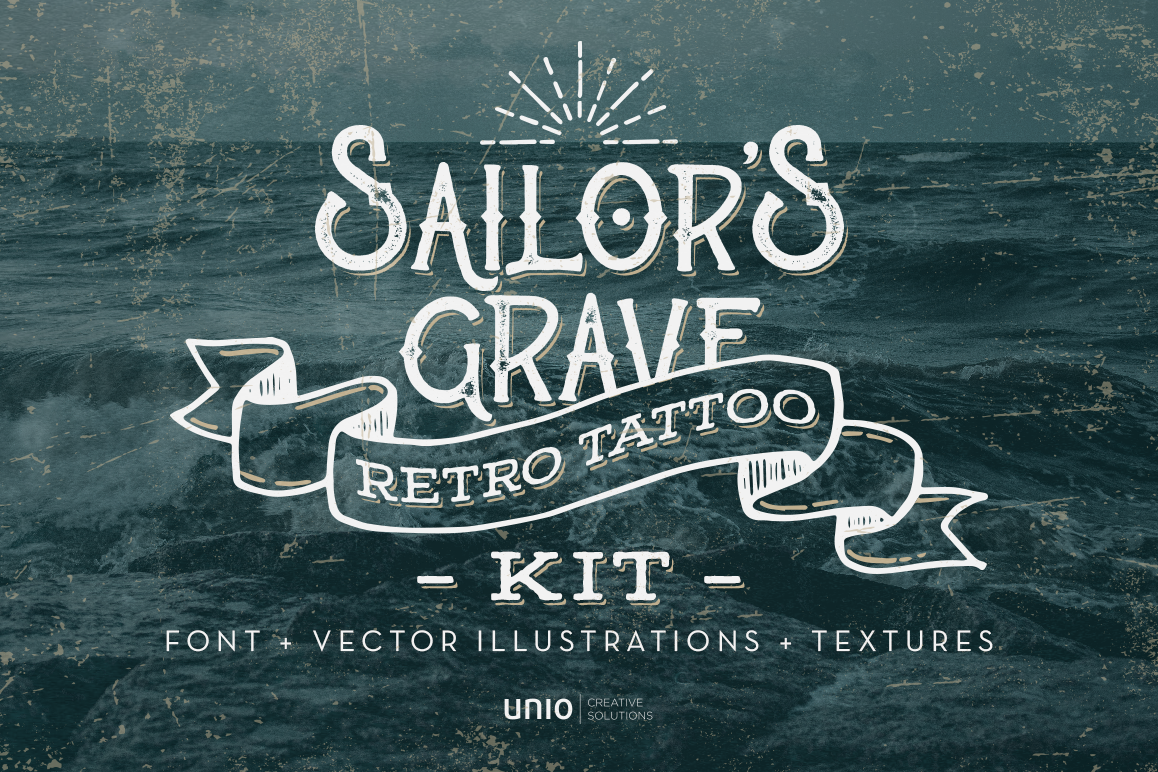
Sailor's Grave - Retro Tattoo Kit
Unio presents “Sailor’s Grave - Retro Tattoo Kit” !!!
This hand-made kit brings back the old fashioned style of retro tattoo with vector quality!!!
Create outstanding vintage designs or ads in a matter of seconds with these illustrations and font.?